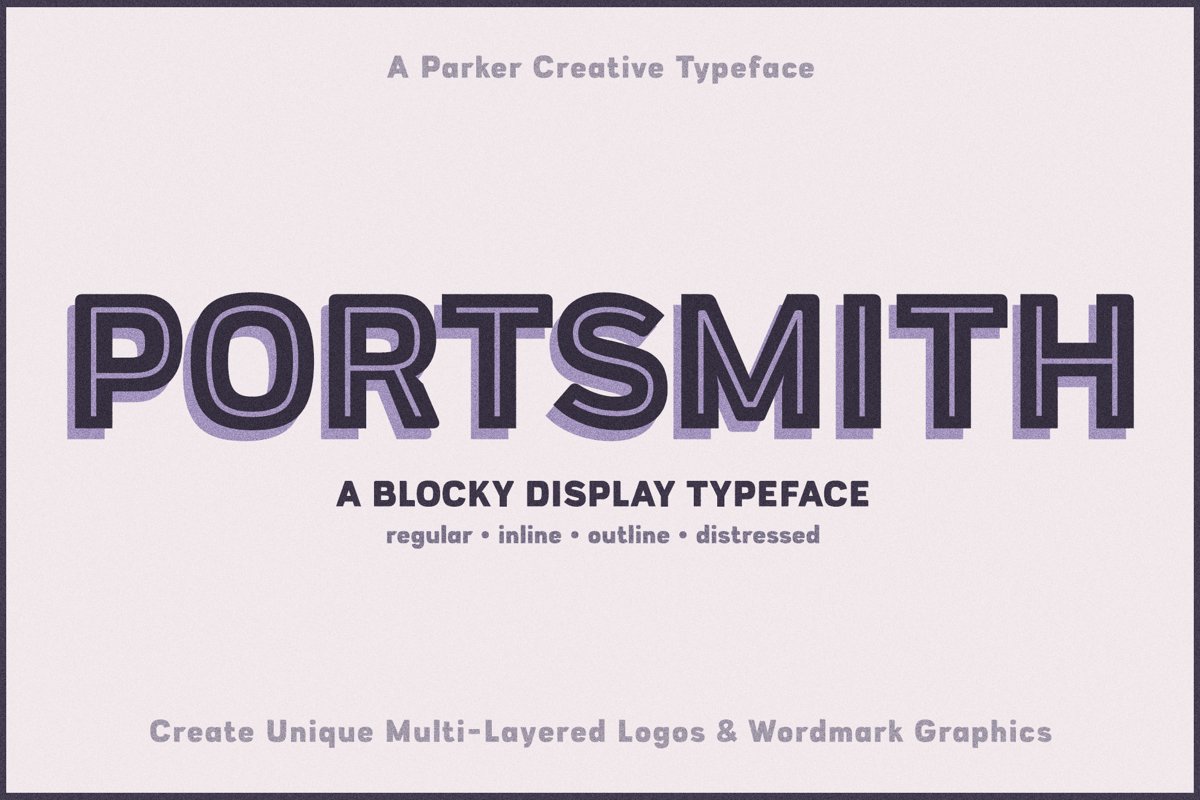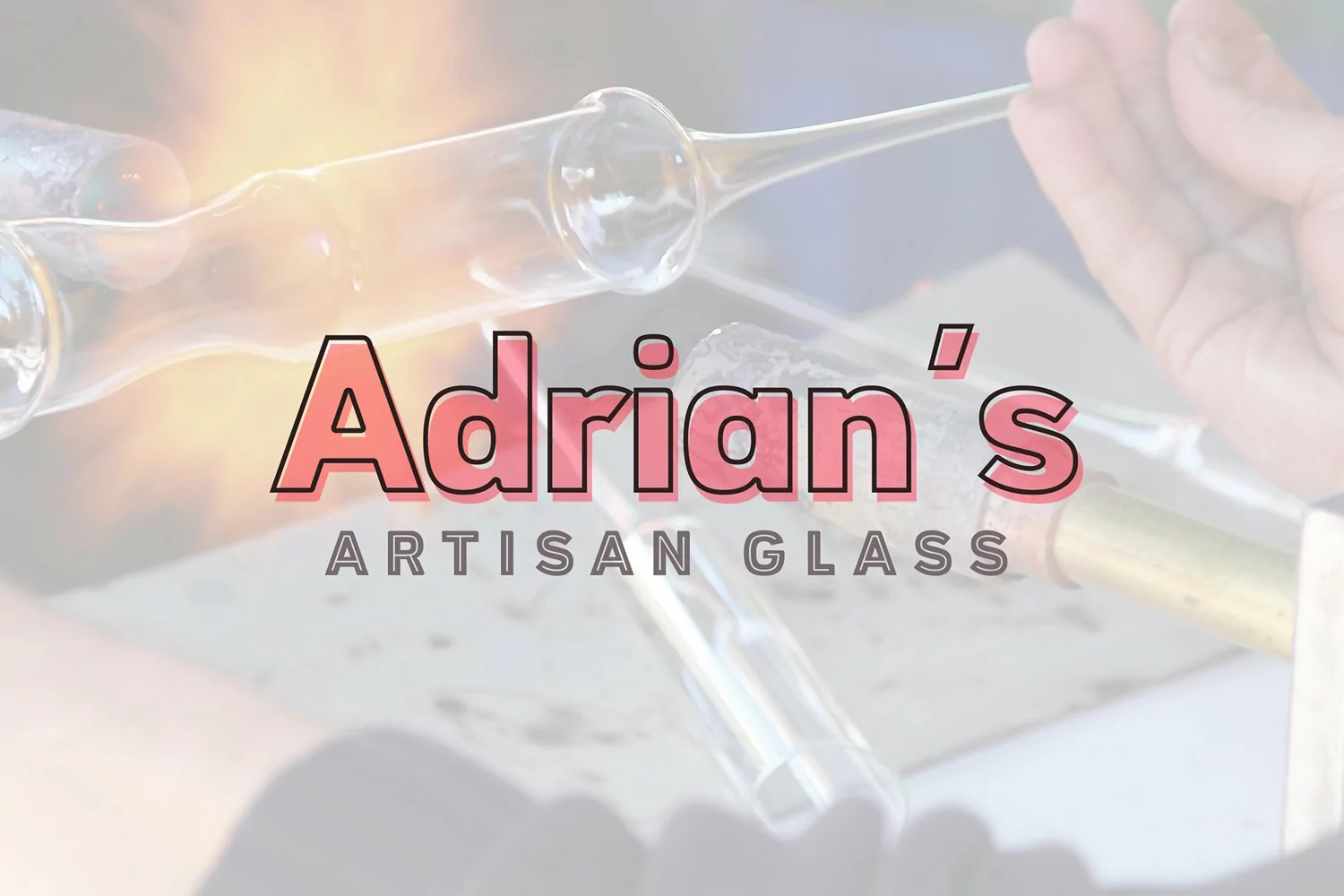
Portsmith - A Multi-Layer Typeface
Portsmith is a versatile, multilayer display font that includes four custom styles for building modern logos and wordmark graphics! With regular, inline, outline, and distressed styles all included, Portsmith gives you the freedom to create tons of design variations in just a few clicks. See the screenshots for design inspiration, and start creating your own modern designs today!
Portsmith Features:
• Distressed styling – made with totally unique distressed imperfections on each character
• Inline styling – sized and spaced evenly with methodical precision
• Outline styling – identical stroke thickness for every character
• Uppercase, lowercase, number, symbols, and extended punctuation for ALL styles
• An extensive multilingual library to support international designers